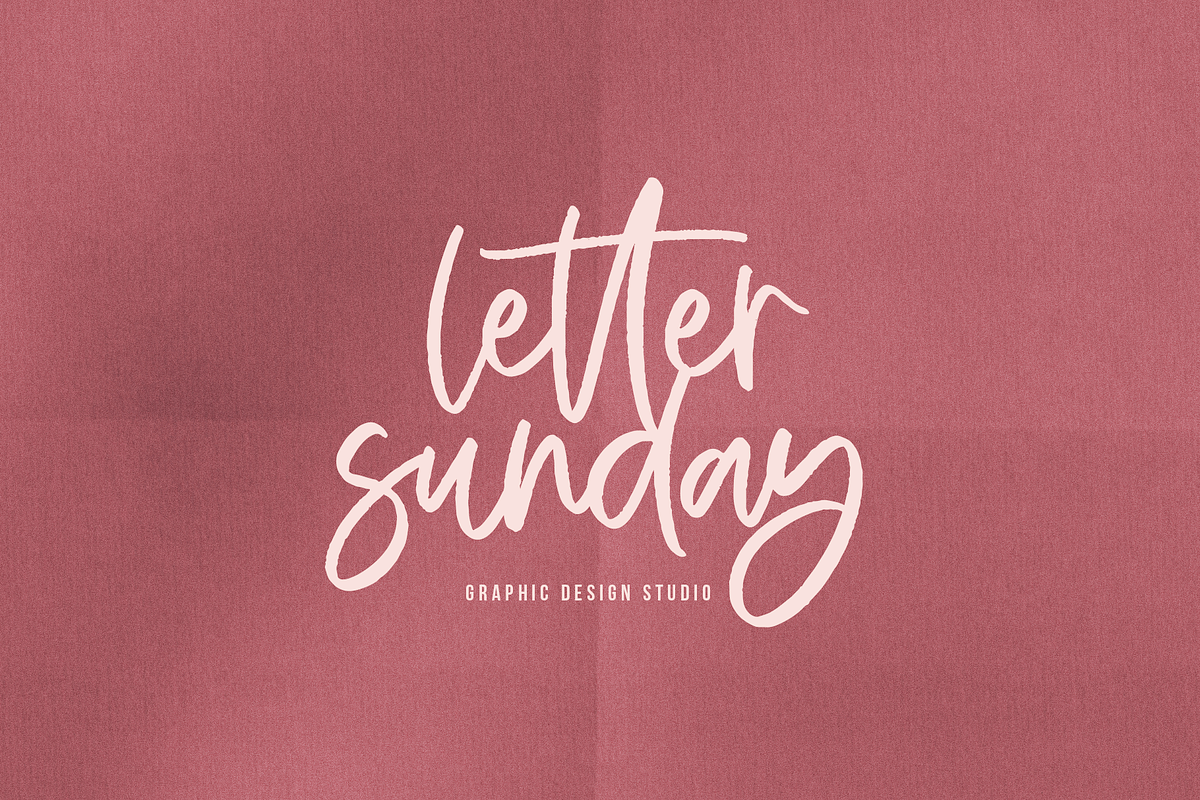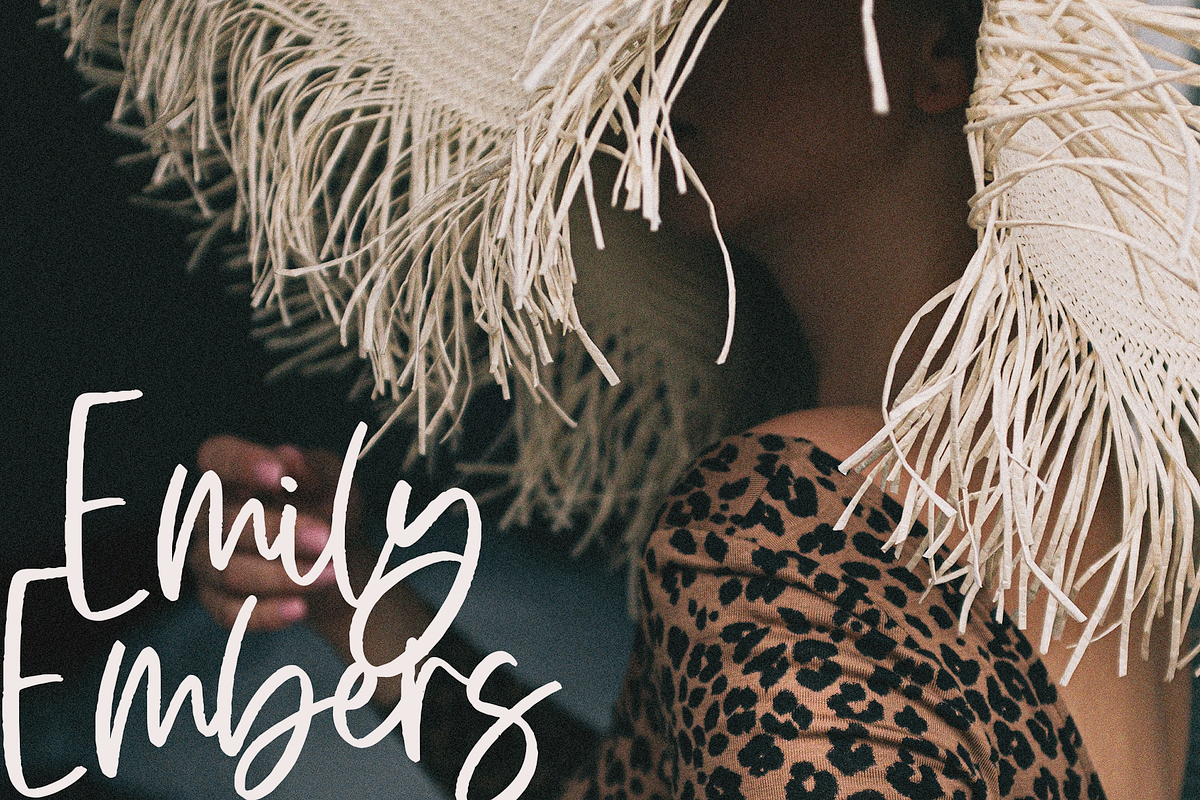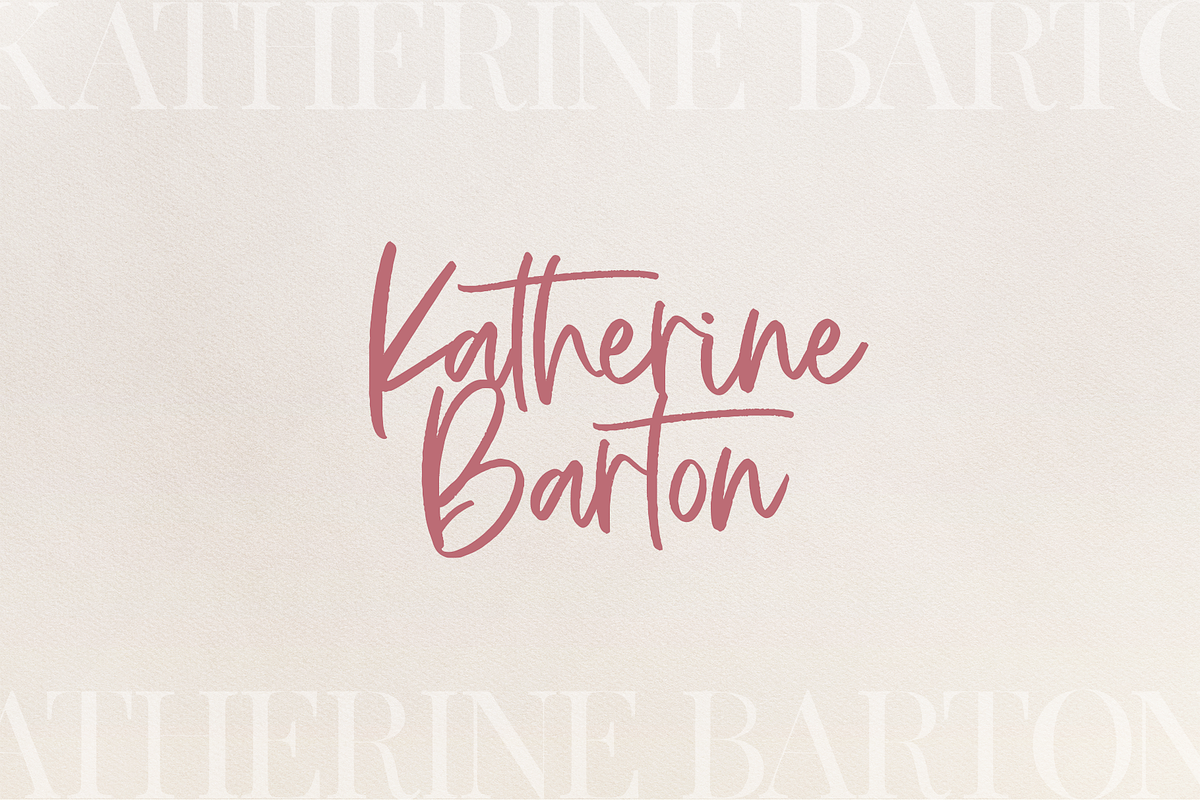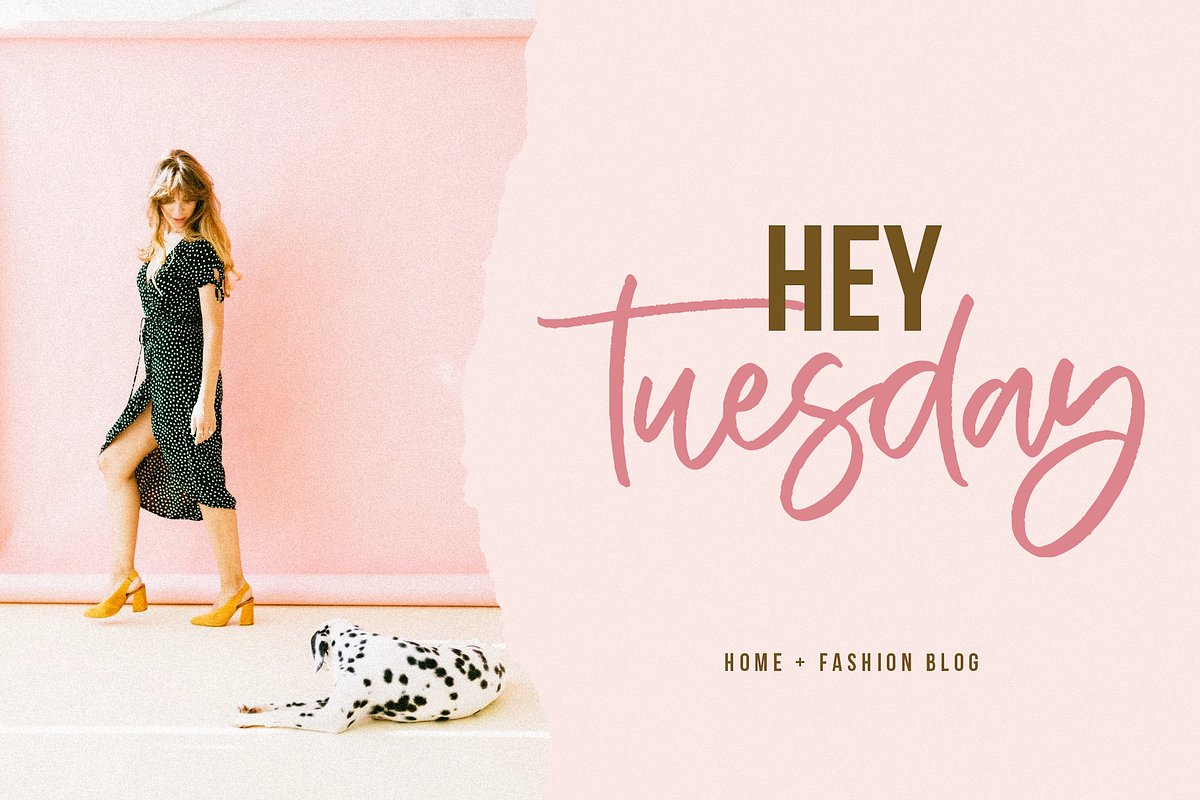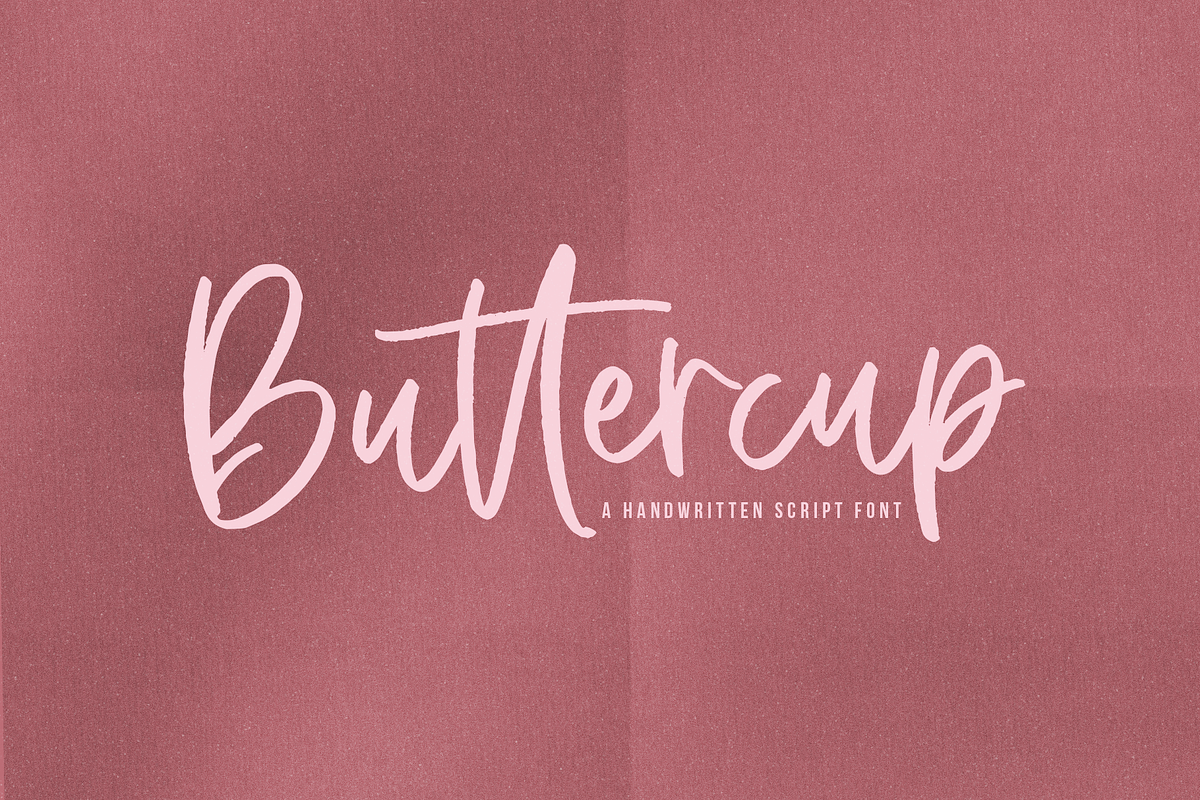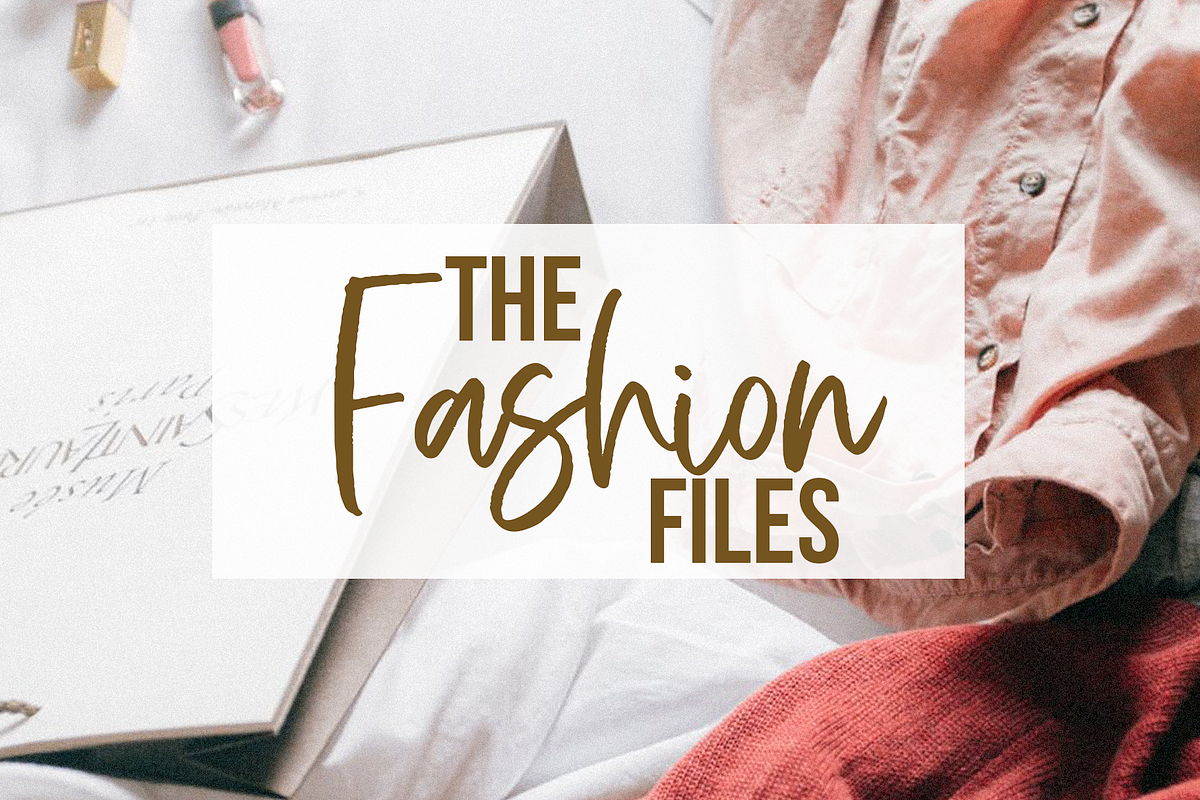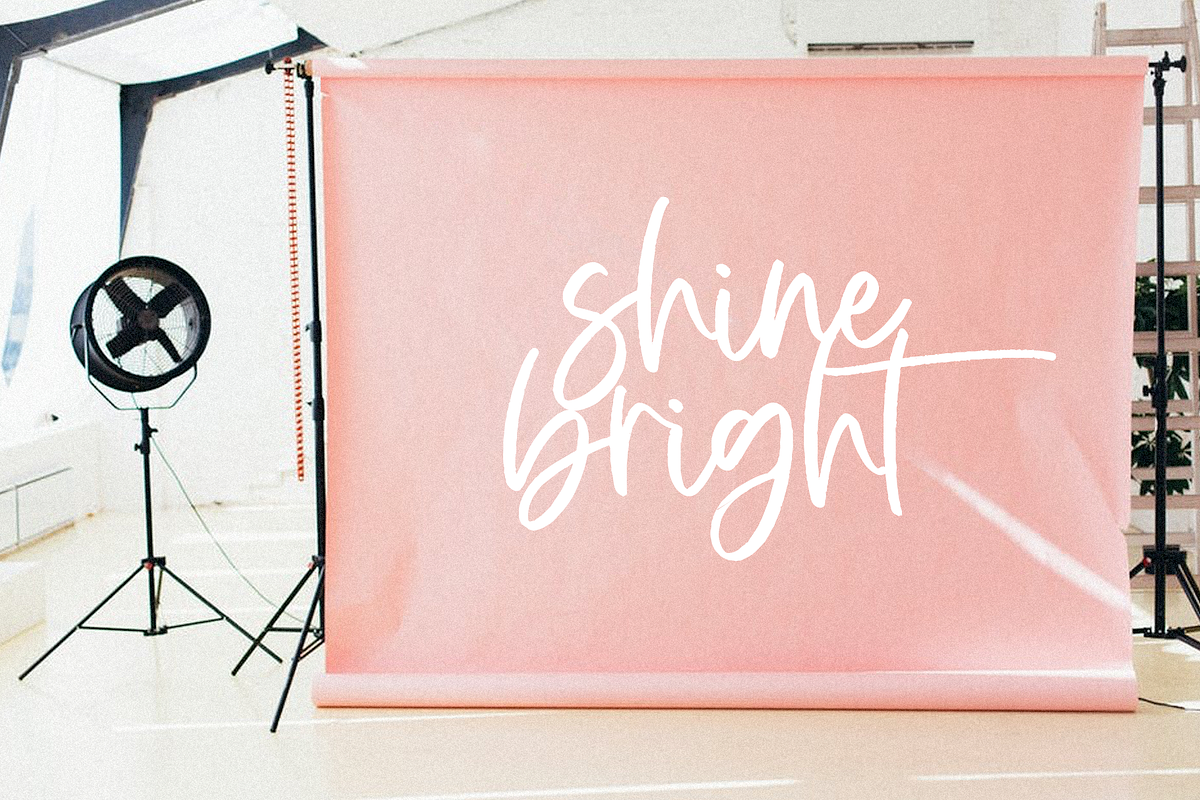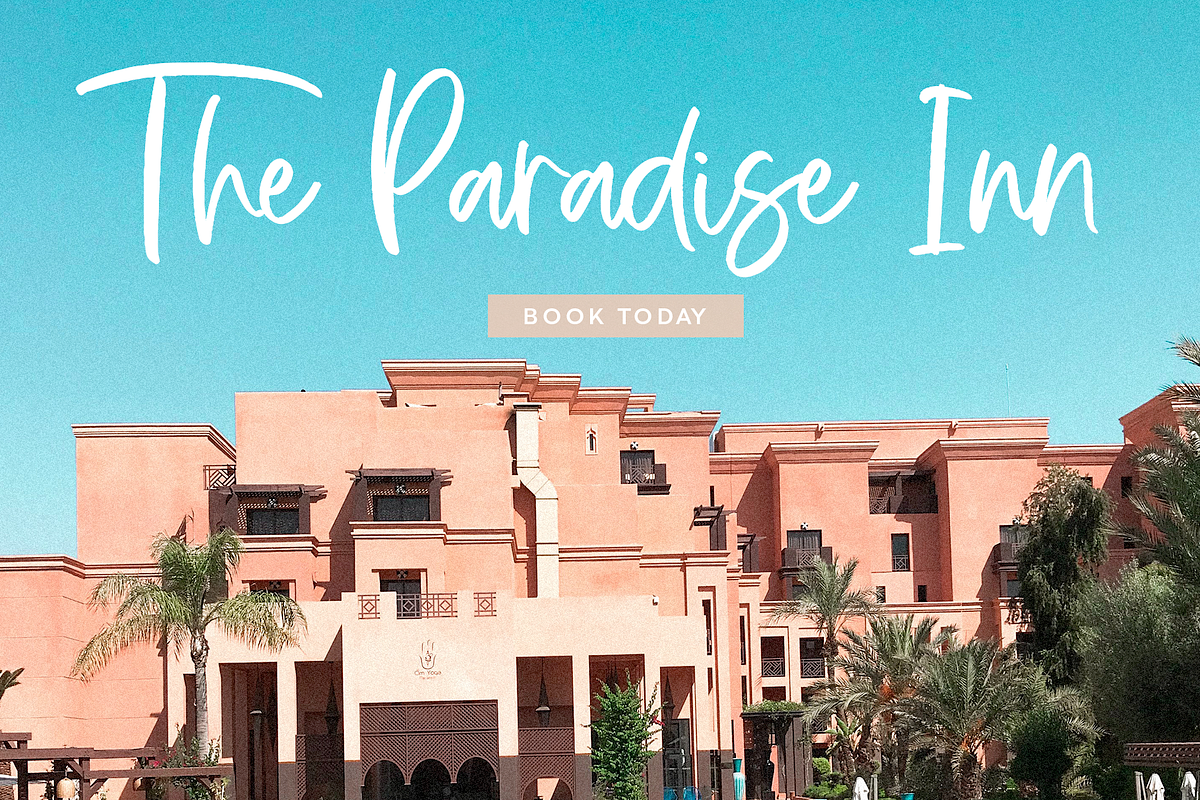
Buttercup | Handwritten Script Font
Buttercup is a modern handwritten font with a brush texture. The authentic texture and exaggerated letters makes it a perfect choice for branding and digital designs.
Use this font for logos, social media, websites, blogs, instagram, social media, business cards, branding, and more!
Buttercup | Handwritten Script Font by KA Designs fits naturally into Branding, posters, packaging, typography.